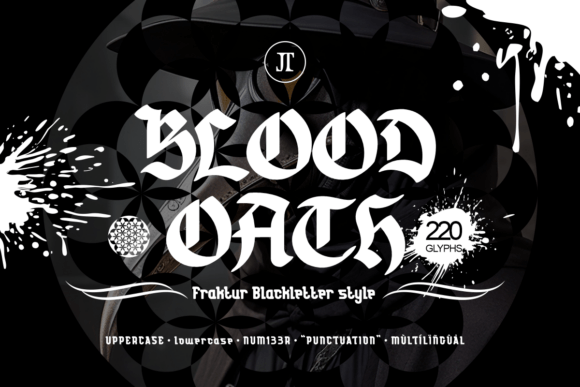
The Font that Bleeds Style and Attitude: A Deep Dive into Blood Oath
I’ll never forget the design project that pushed me to the edge – literally. I was working on a horror movie poster, and my client wanted a title that would make the audience shiver. I scoured the internet for the perfect font, but nothing seemed to capture the essence of fear and rebellion. That’s when I stumbled upon Blood Oath, a bold and dramatic display font that drips with intensity and character. In this article, I’ll share my experience with Blood Oath, its features, and how to make the most of it in your designs.
First Impressions: What I Love About Blood Oath
Blood Oath is more than just a font – it’s an experience. Here are the things that I love about it:
- ✨ Unique hand-crafted texture: Blood Oath has a raw, textured look that gives any project a chilling yet artistic touch.
- ✅ Bold & dramatic lettering: This font is perfect for headlines, logos, and posters that need a fearless and striking design.
- 🔥 Multilingual support: With Blood Oath, you can create designs for a global audience, including uppercase letters, lowercase letters, numbers, punctuation, and multilingual support.
- 🎃 Perfect for horror and dark designs: Blood Oath is ideal for horror movie posters, rock or metal logos, Halloween invitations, dark branding, or any project that needs a bold and edgy aesthetic.
Honest Review: The Not-So-Perfect Aspects
While Blood Oath is an amazing font, it’s not without its quirks. Here are a few things to keep in mind:
- 🤔 Limited use cases: Blood Oath is a display font, so it’s best used for headlines and titles. It might not be the best choice for body text or smaller designs.
- ⚠️ May require manual kerning: Depending on the design, you might need to adjust the kerning to get the perfect look.
The Story Behind Blood Oath
The story behind Blood Oath is shrouded in mystery, but it’s said that the font was inspired by ancient rituals and forbidden knowledge. The designer, a rebellious artist with a passion for horror and dark art, wanted to create a font that would evoke fear and intensity. And so, Blood Oath was born – a font that bleeds style and attitude.
- Q: What type of designs is Blood Oath best suited for?
- A: Blood Oath is perfect for horror movie posters, rock or metal logos, Halloween invitations, dark branding, or any project that needs a fearless and striking design.
- Q: Does Blood Oath support multilingual characters?
- A: Yes, Blood Oath includes multilingual support, making it perfect for designs that require non-English characters.